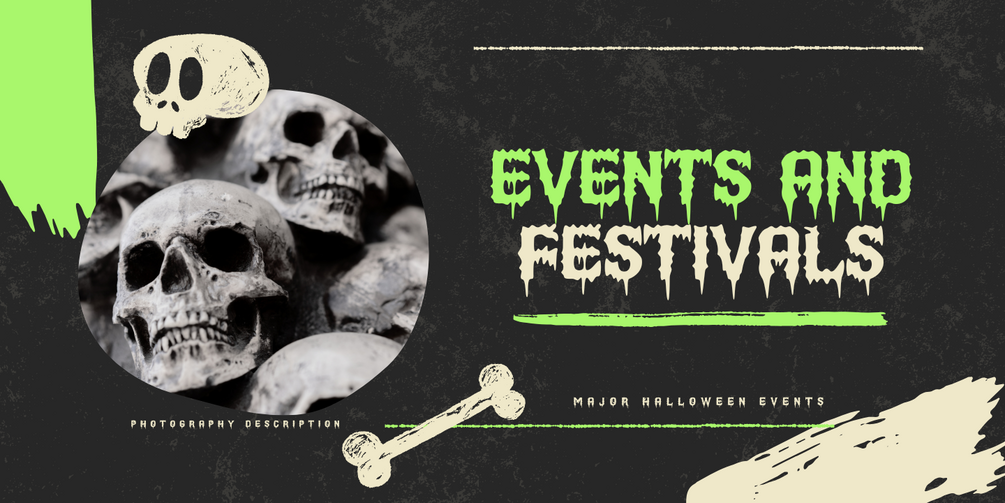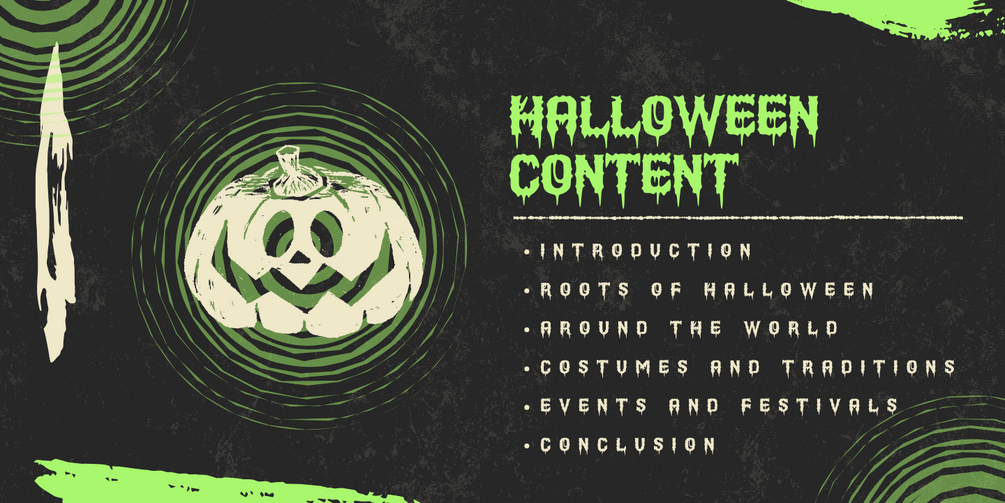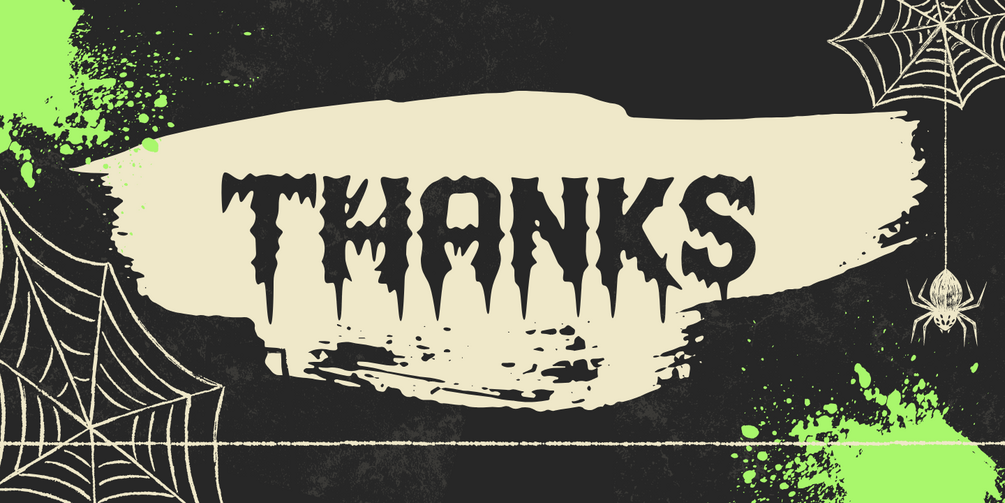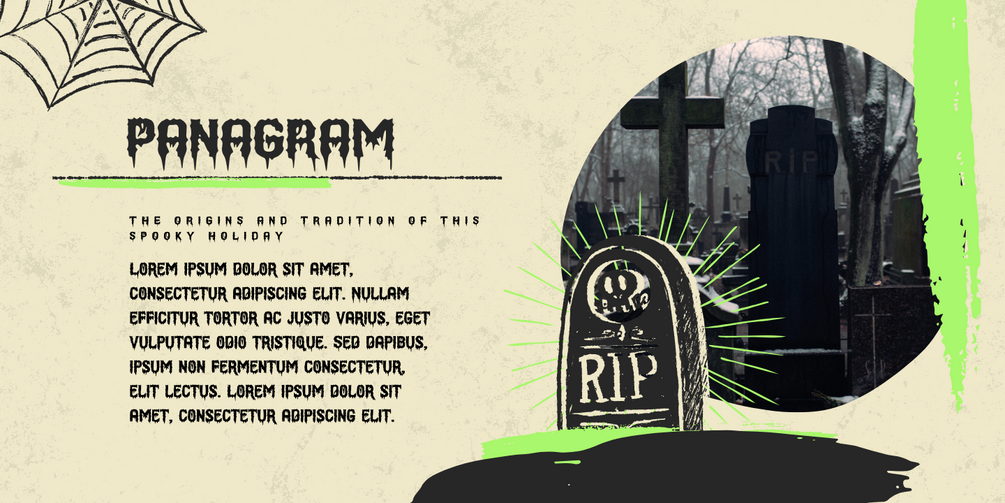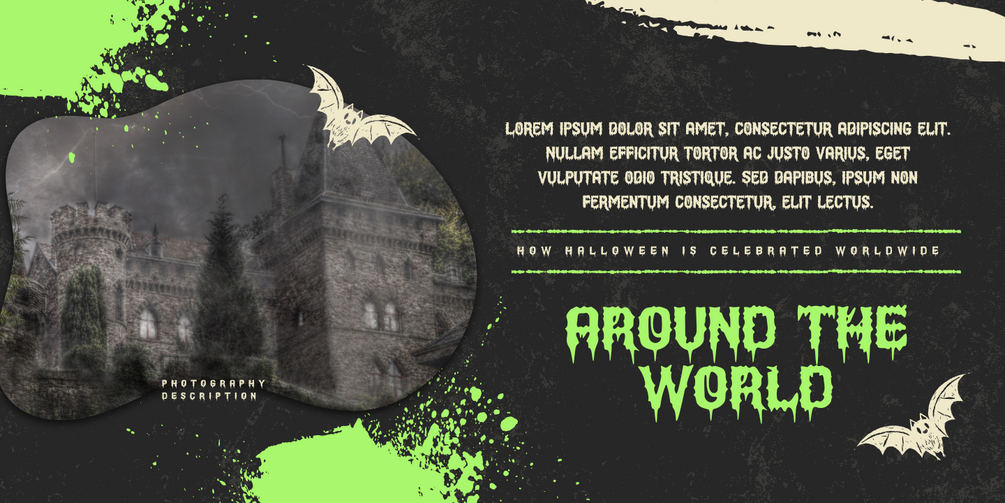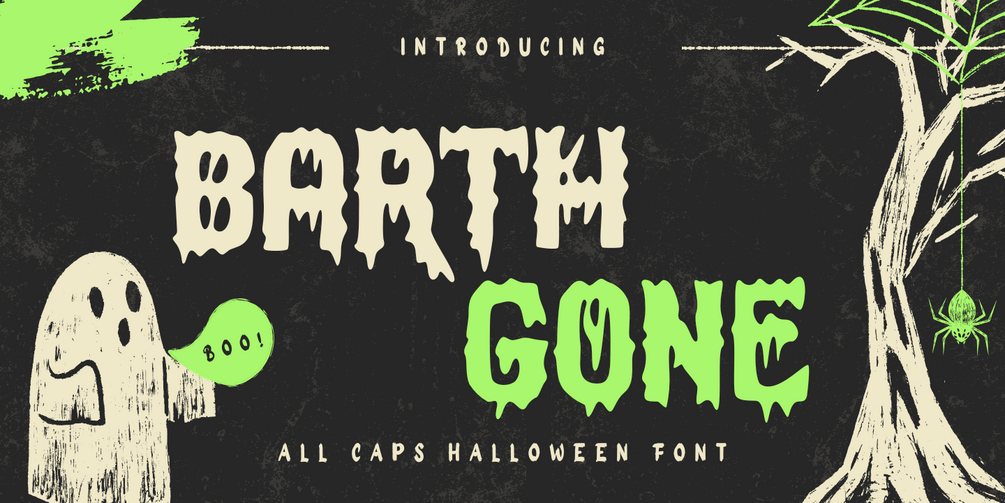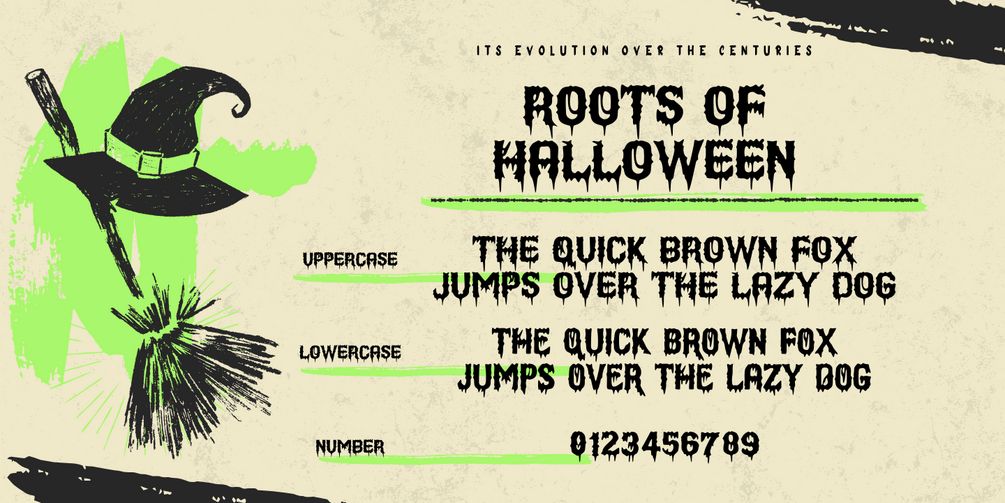
Barth Gone – Sharp Horror Font
Barth Gone – Sharp Horror Font (ALL CAPS) for Thriller, Zombie, Halloween & Dark Designs
Barth Gone is an ALL CAPS horror font with a sharp, torn, and damaged texture that delivers an intense dark, brutal, and suspenseful atmosphere. The letters look jagged and rough, like they were scratched or ripped—perfect for designs that need a fearless, aggressive, and high-impact look.
This font is ideal for horror movie titles, survival games, zombie themes, Halloween posters, thriller book covers, extreme logos, and dark social media content.
Why Barth Gone Stands Out:
✅ ALL CAPS – Bold, strong, and easy to read
✅ Sharp & grunge style – ripped, scratched, destroyed look
✅ Perfect for dramatic titles & headlines
✅ Works great in print and digital projects
✅ Instantly adds horror vibe—no extra editing needed
Best For:
• Halloween Posters & Event Flyers
• Horror / Thriller Movie Titles
• Zombie & Survival Games
• Dark Book Covers
• Extreme T-Shirt & Merchandise Design
• Band / Horror Logo Design
• Creepy YouTube Thumbnails
🔥 Need a horror font that’s sharp, intense, and full of personality—without dripping effects? Barth Gone is the ultimate choice!